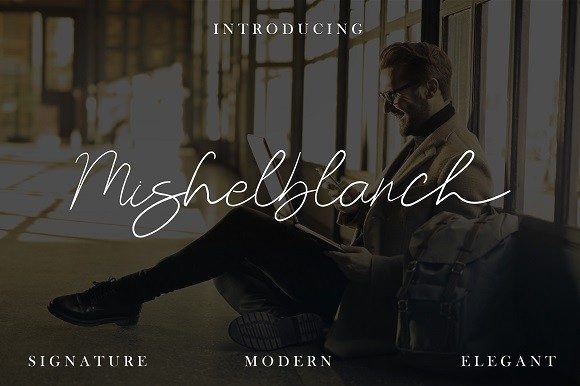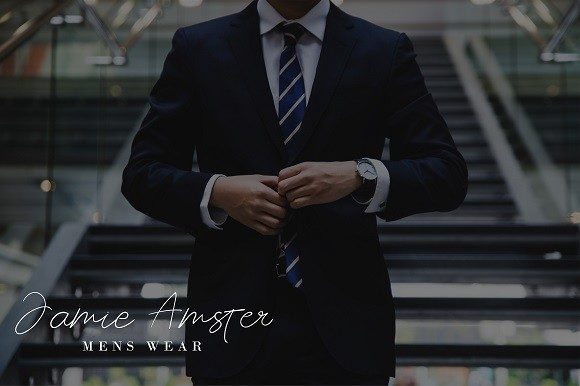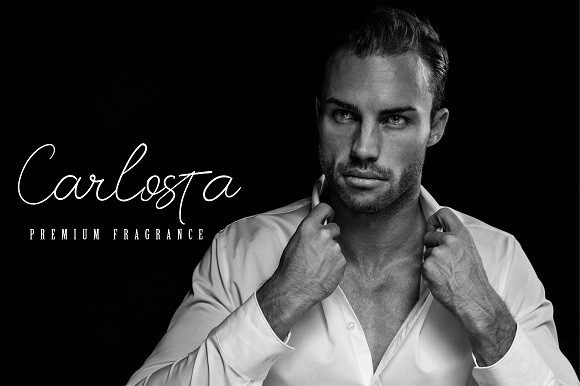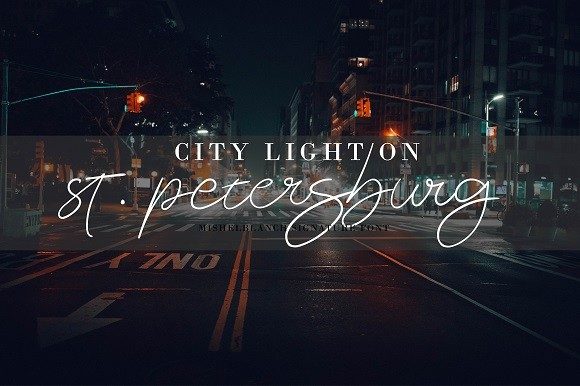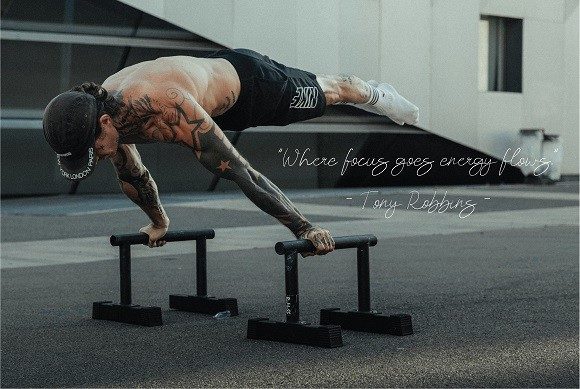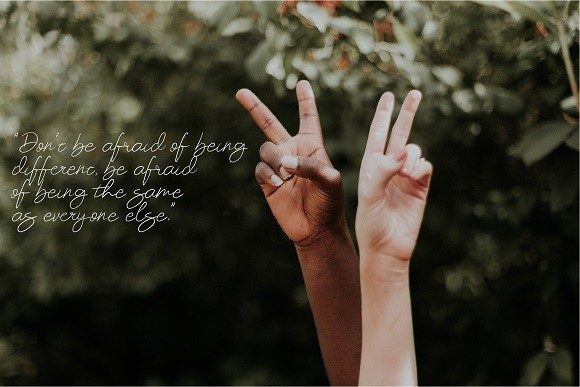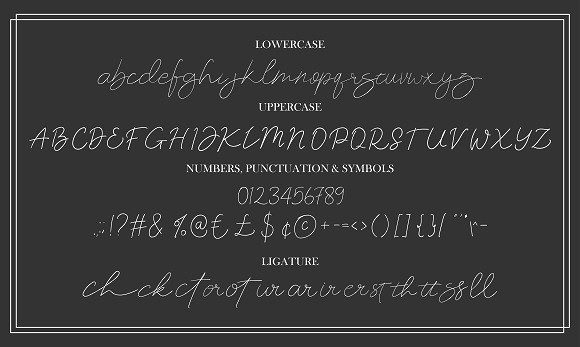
Mishelblanch Font
About Mishelblanch Font
Mishelblanch is a thin lettered, refined script font that emanates sophistication and elegance. Its stylish alternates and ligatures make this font the perfect match for any project.